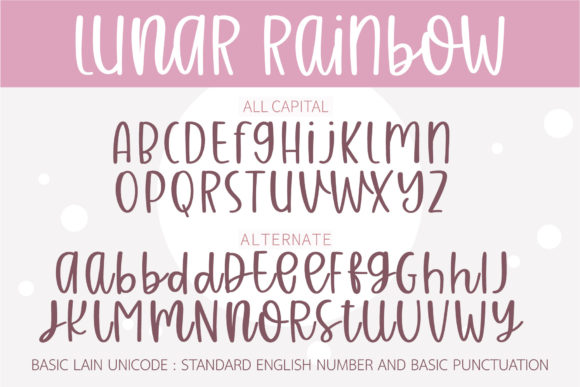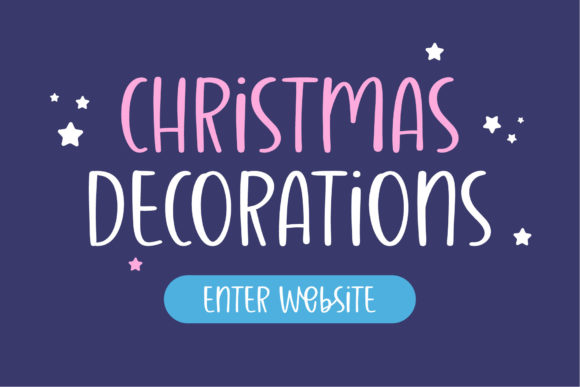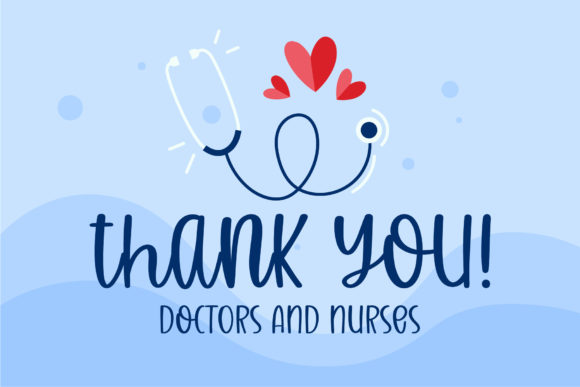
Introduction to Lunar Rainbow Font
Lunar Raninbow is a chic, refined script font that emanates sophistication and elegance.
It’s stylish alternates and ligatures make this font the perfect match for any project .
Key Features of Lunar Rainbow Font
Why Choose Lunar Rainbow Font?